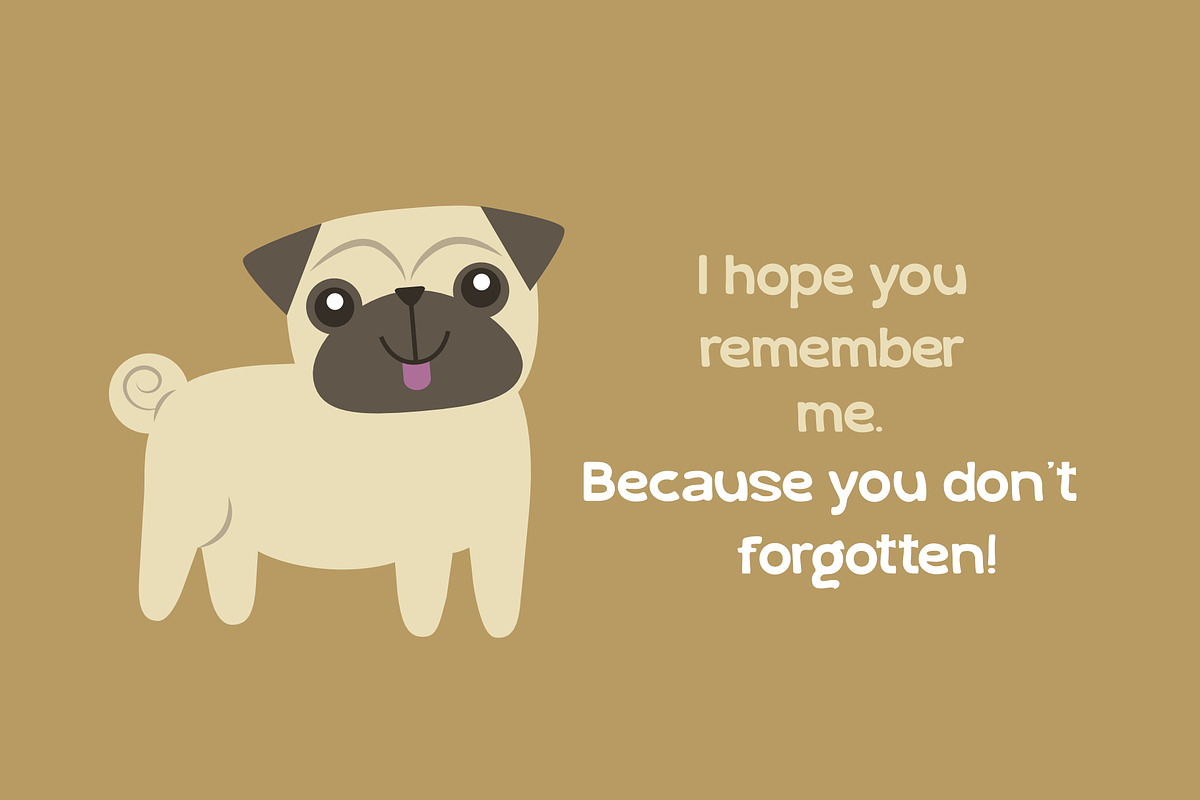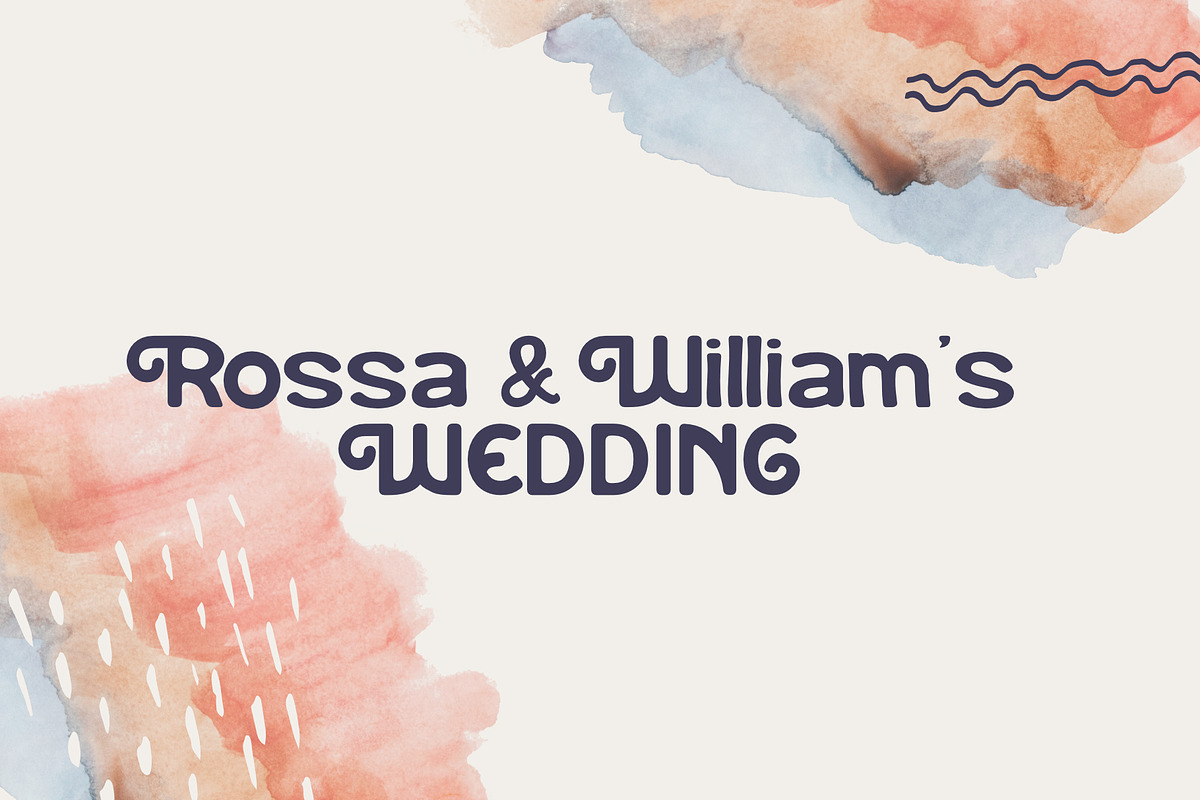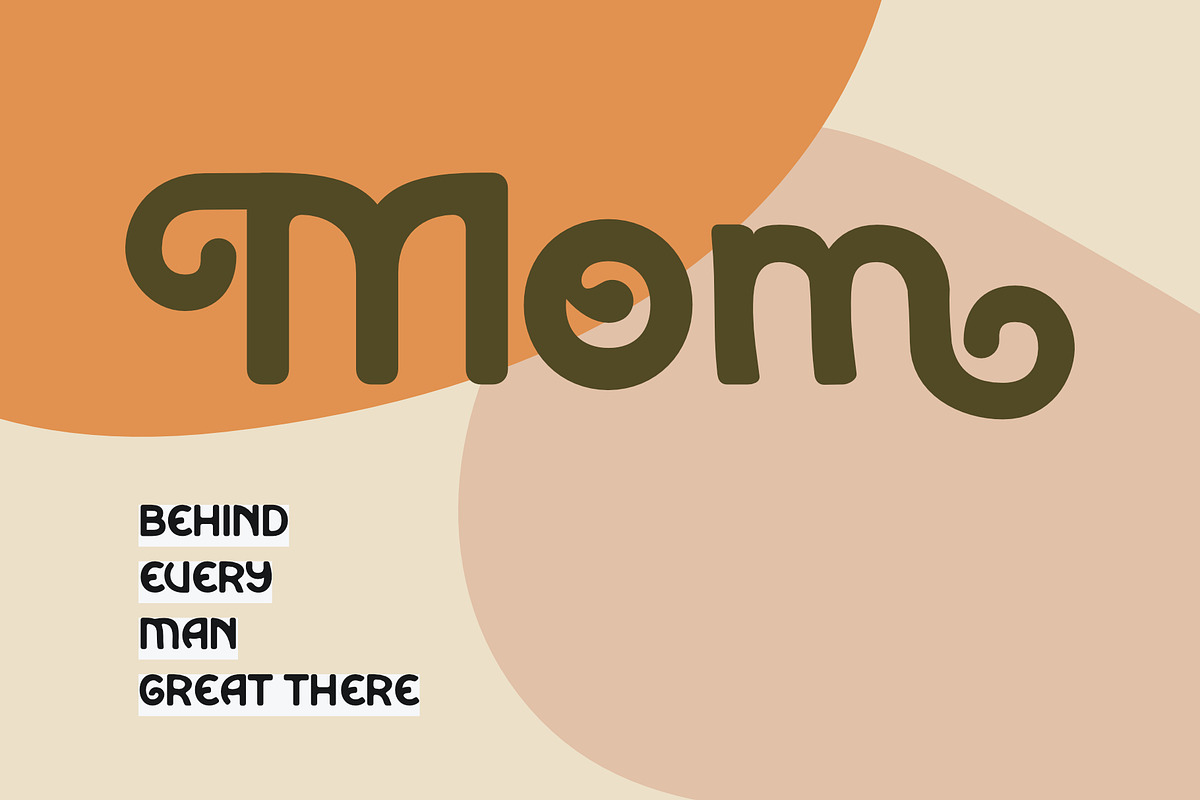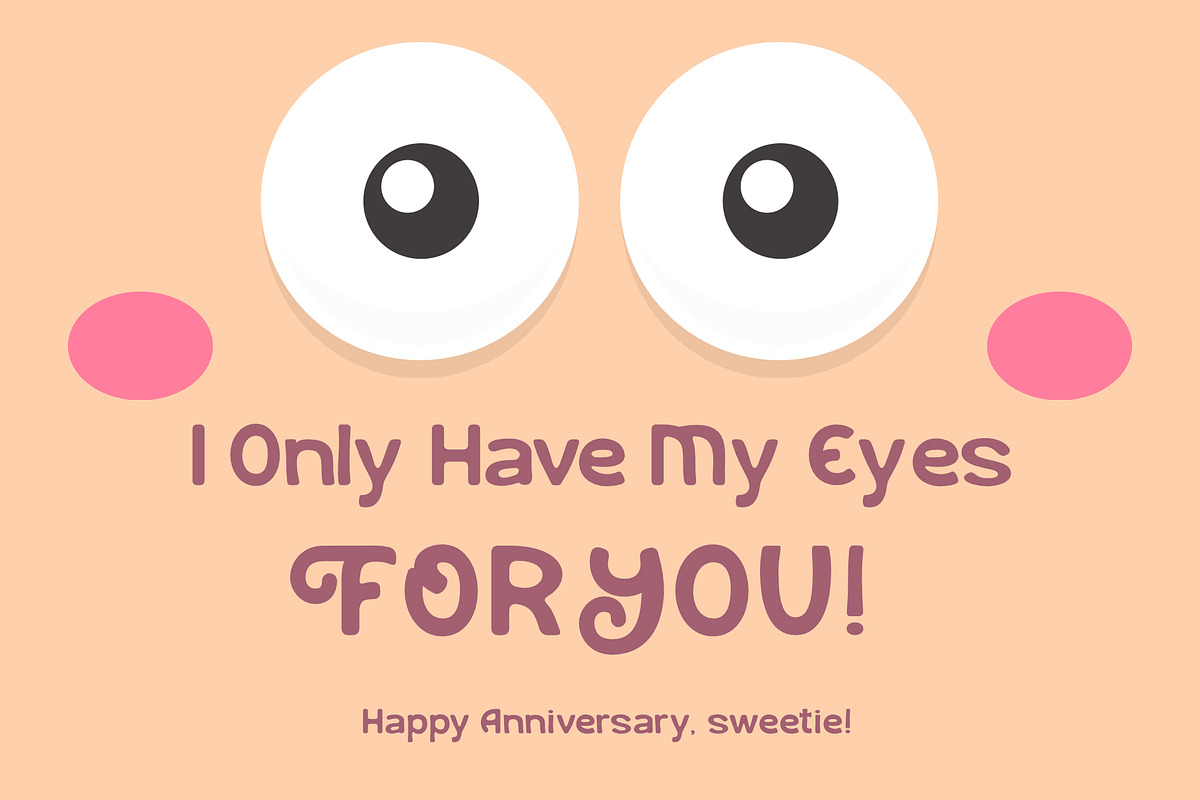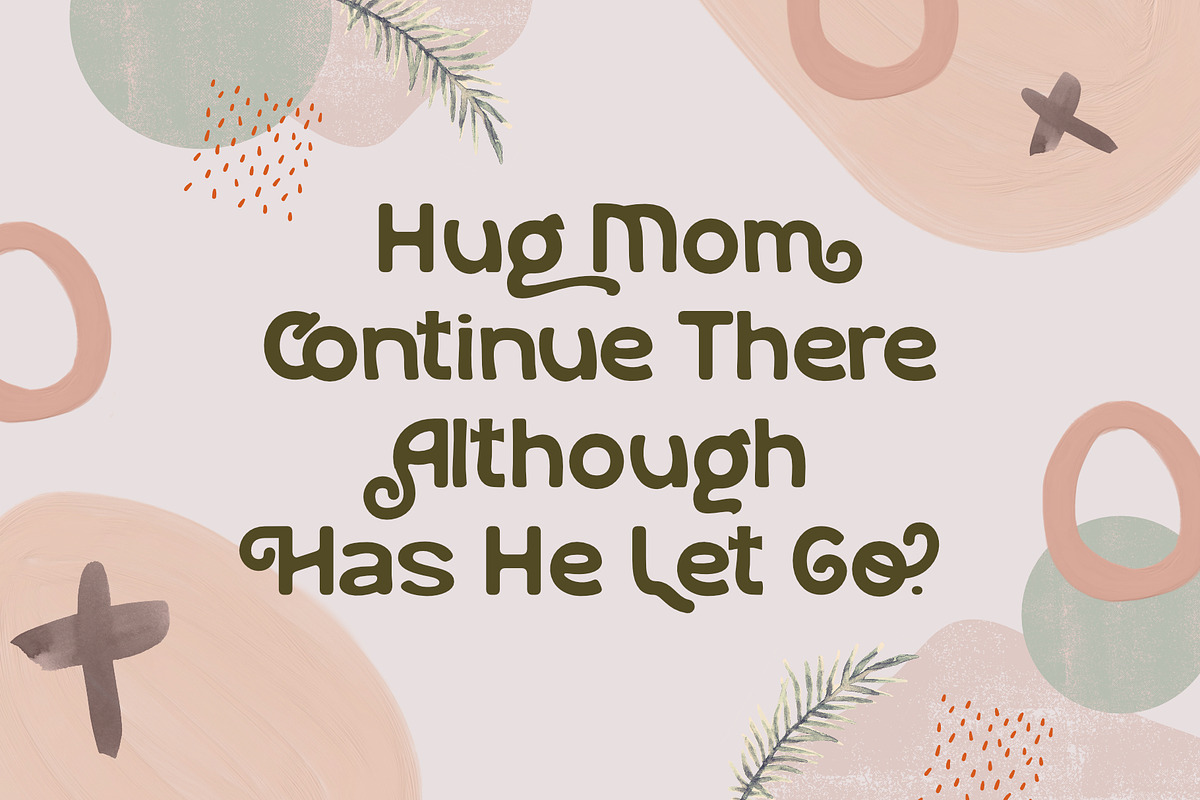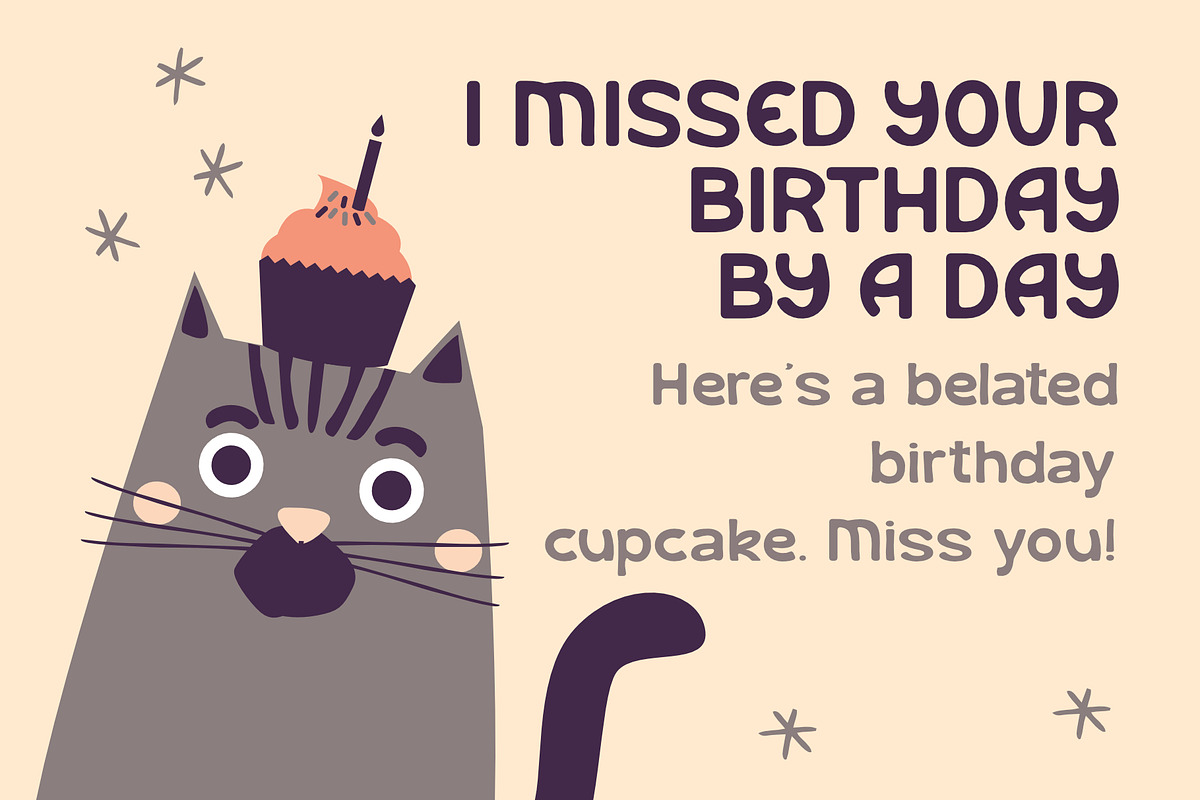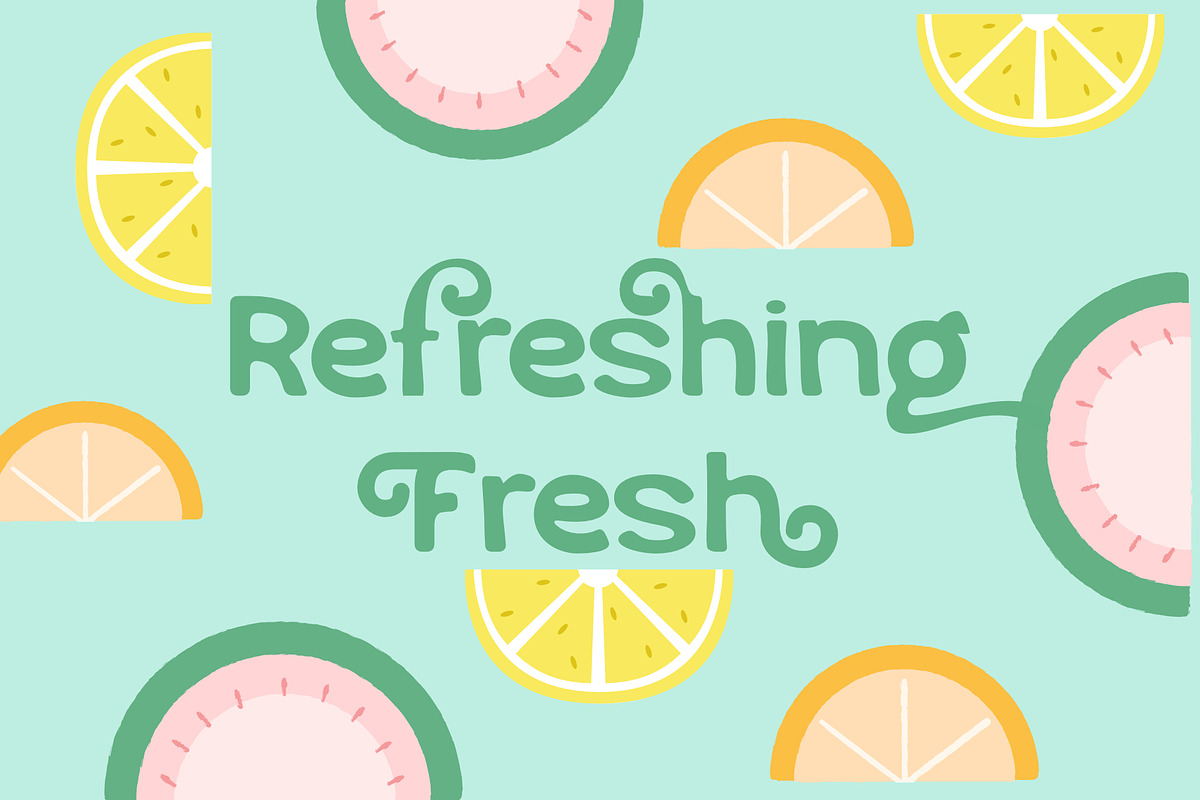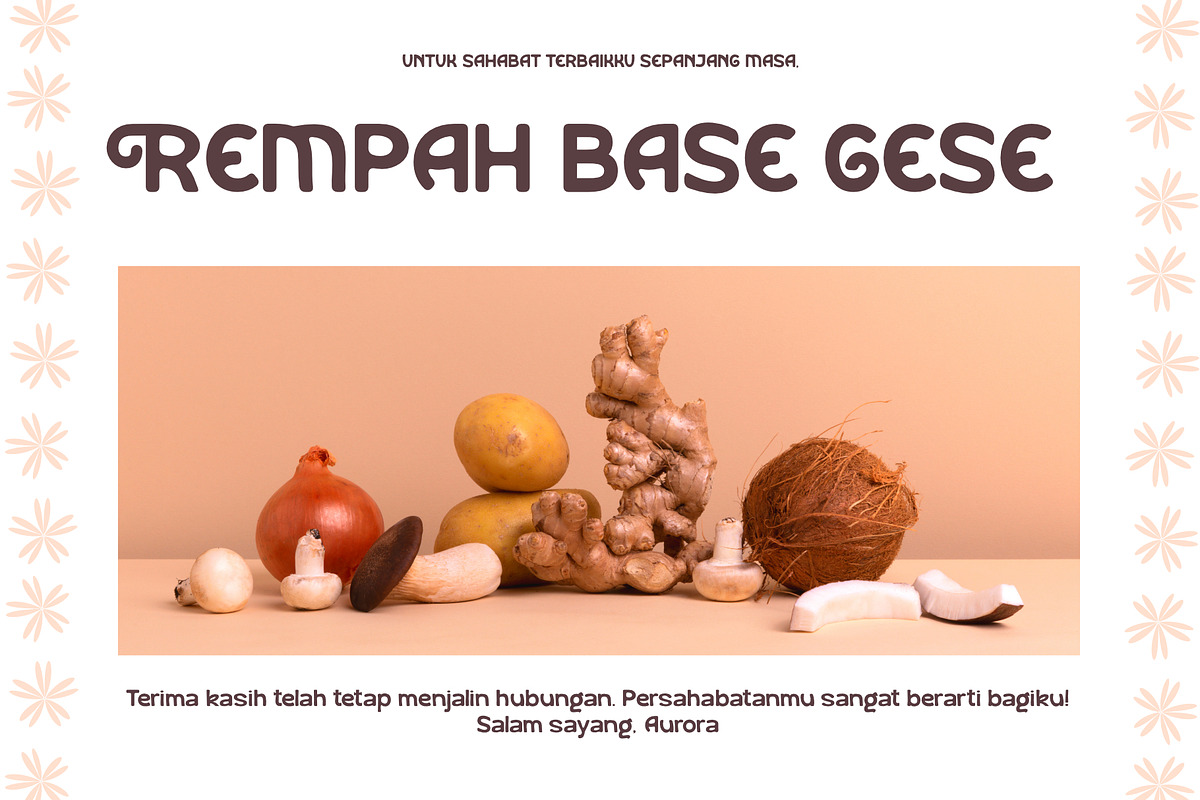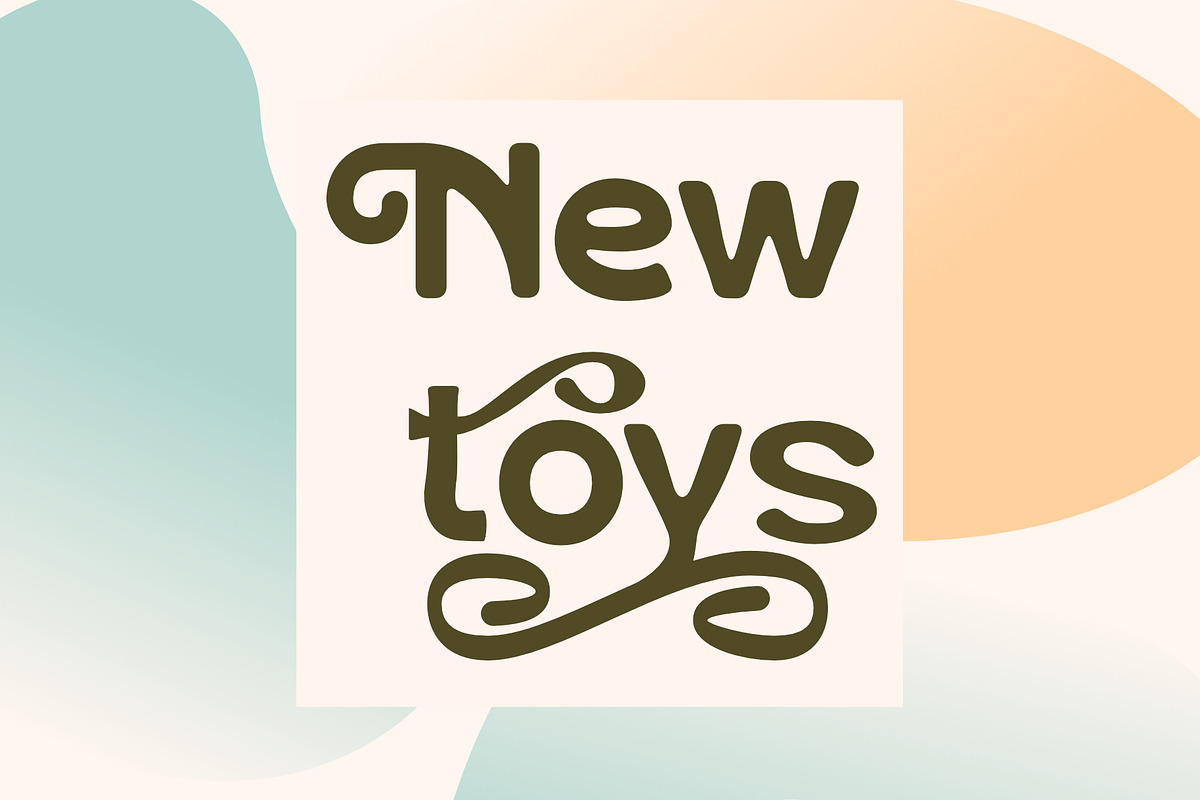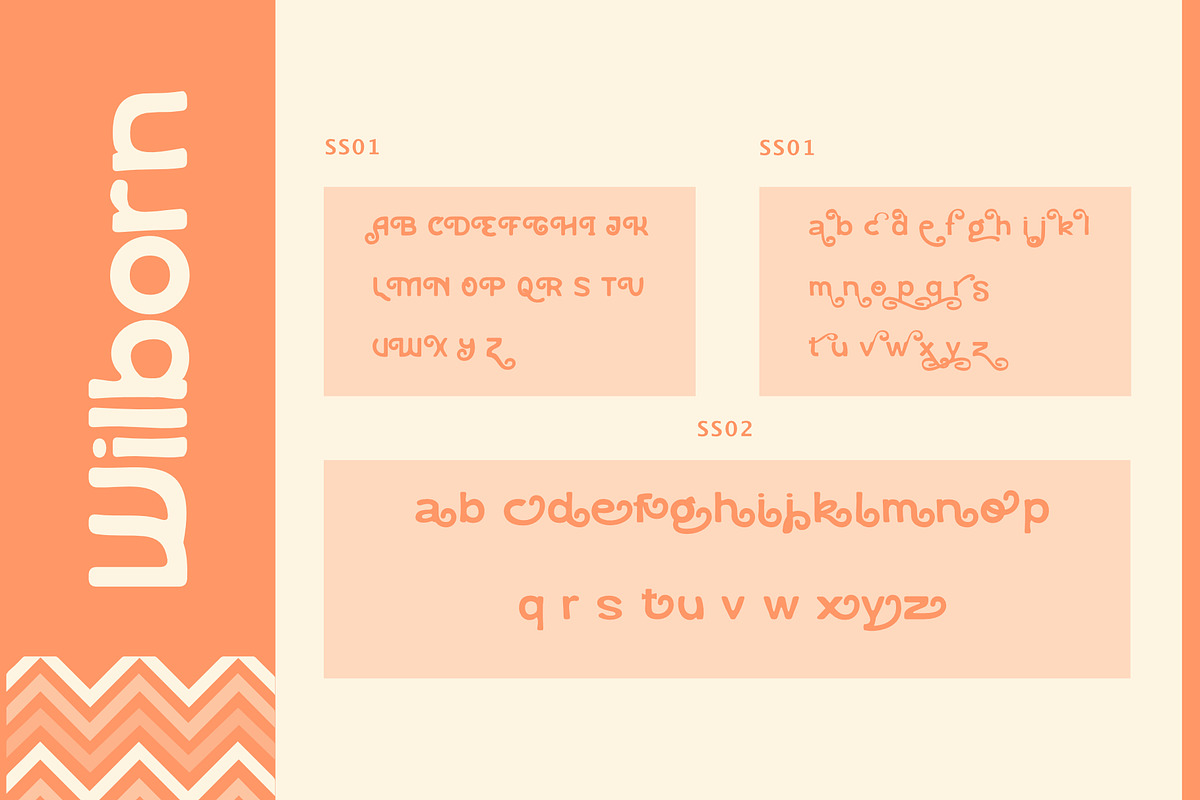
Wilborn - Display Font
Wilborn Display font Stylish screen fonts are great for fun, kid-friendliness, fun, and easy readability. This typeface gives the impression of being random, but neat and dense from letter to letter.
- Standard glyphs uppercase and lowercase letters
- Numerals, a large range of punctuation and ligatures.
- Stylistic Set